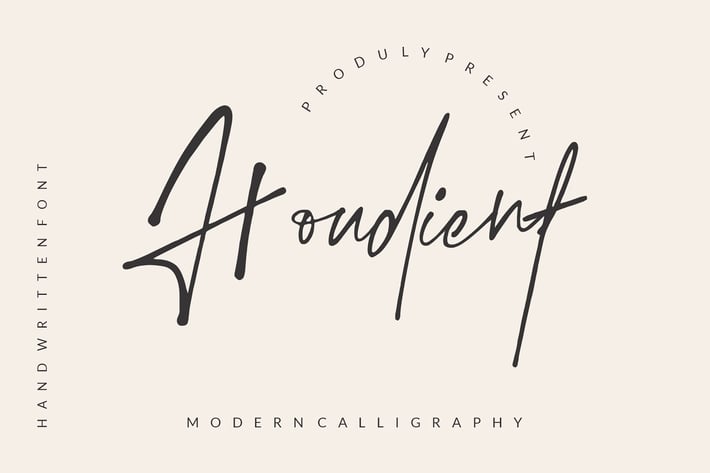
Houdient Signature Font
Houdient is a Casual, Modern, Stylish, Classy script font, And I hope you love every moment of using them!
Houdient was built with OpenType features and includes , numbers, punctuation, and it also multilingual support.
Houdient script fonts combined with Abstract Shapes the perfect quality and graphic of elements let you create wedding invitations, wedding stationery, DIY, wrappers, fashion textile patterns, textures, posters, wedding decorations, gifts, quotes, blogs, wallpapers, stickers, etc.